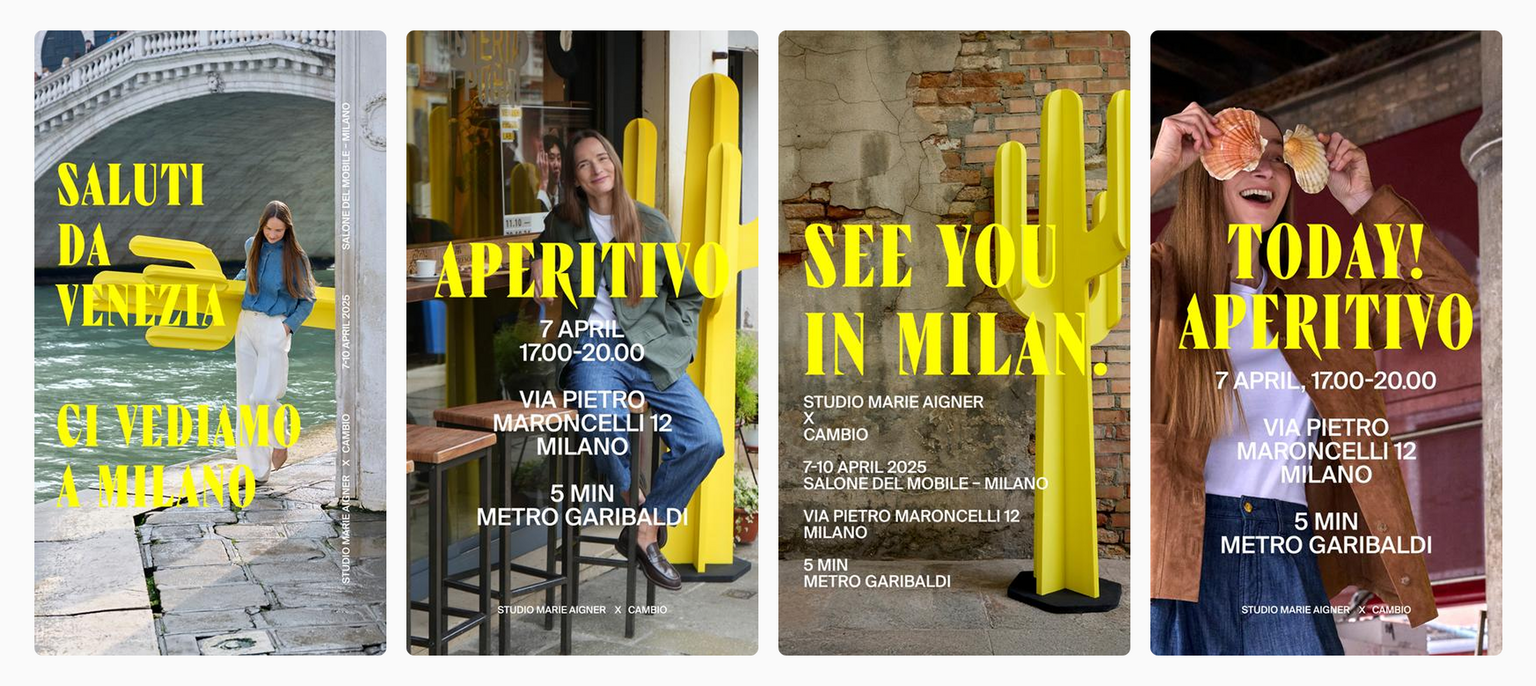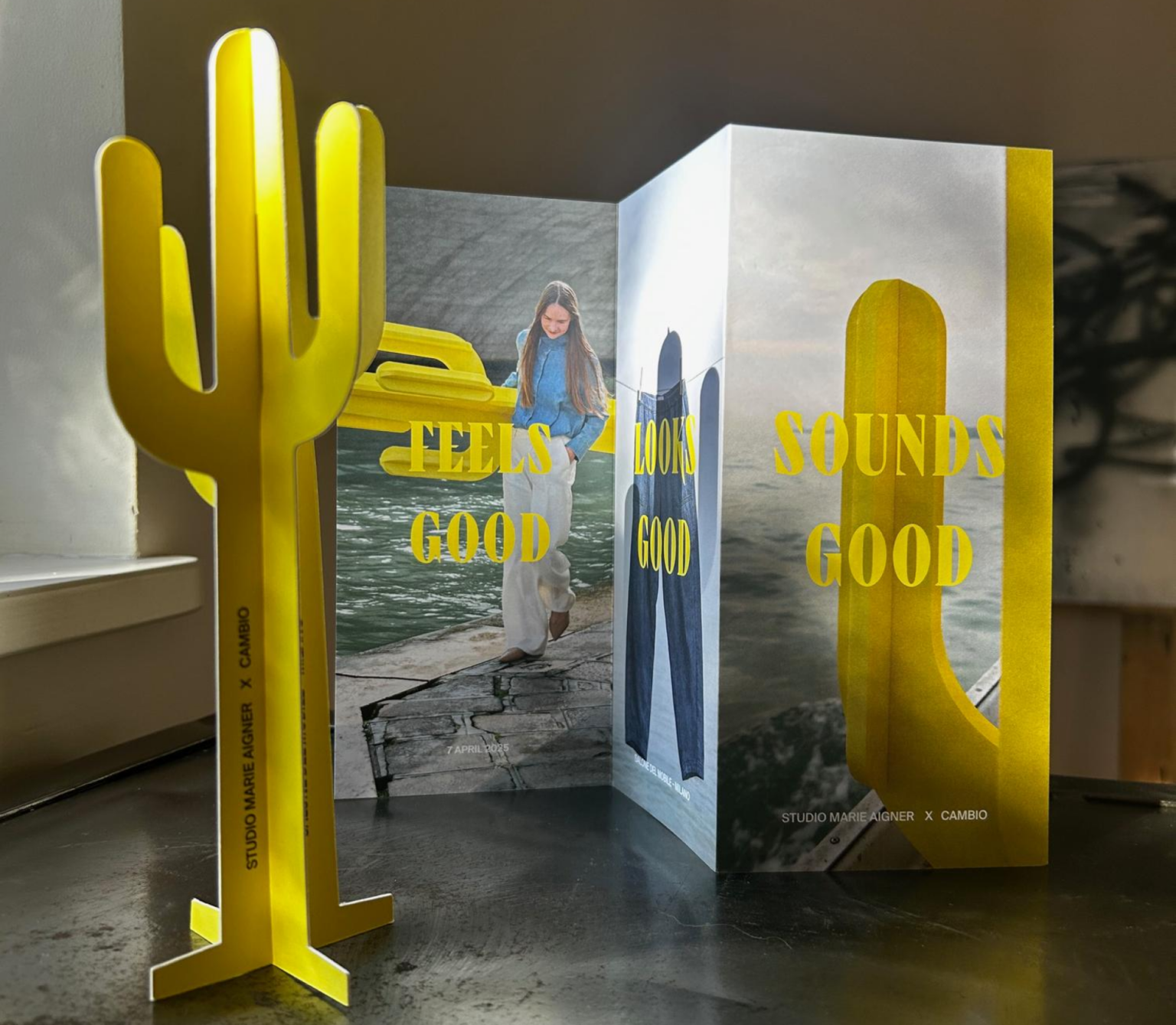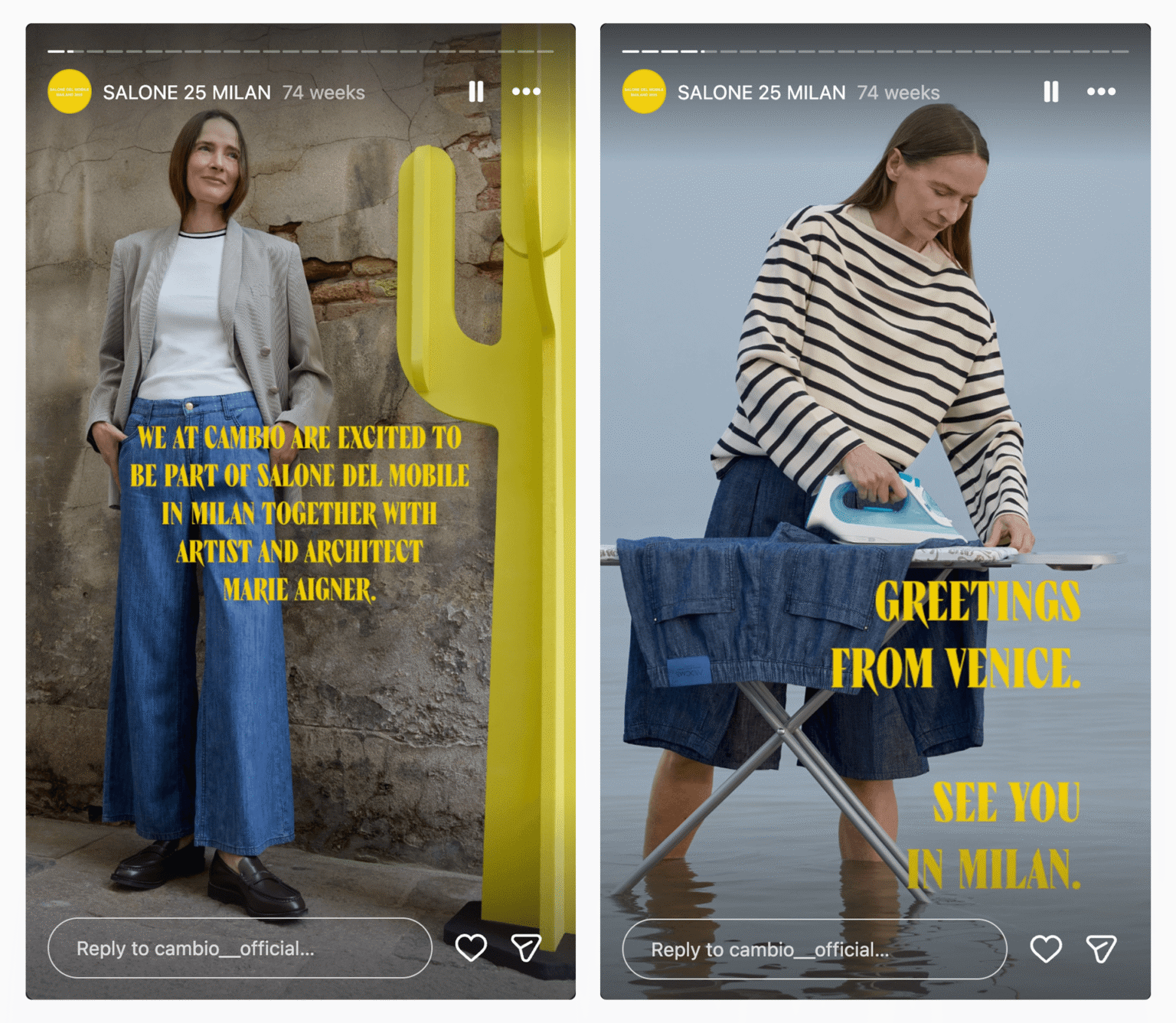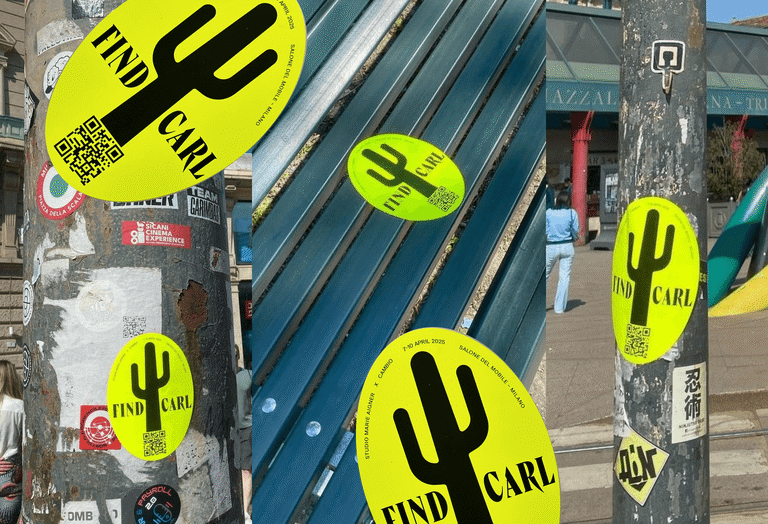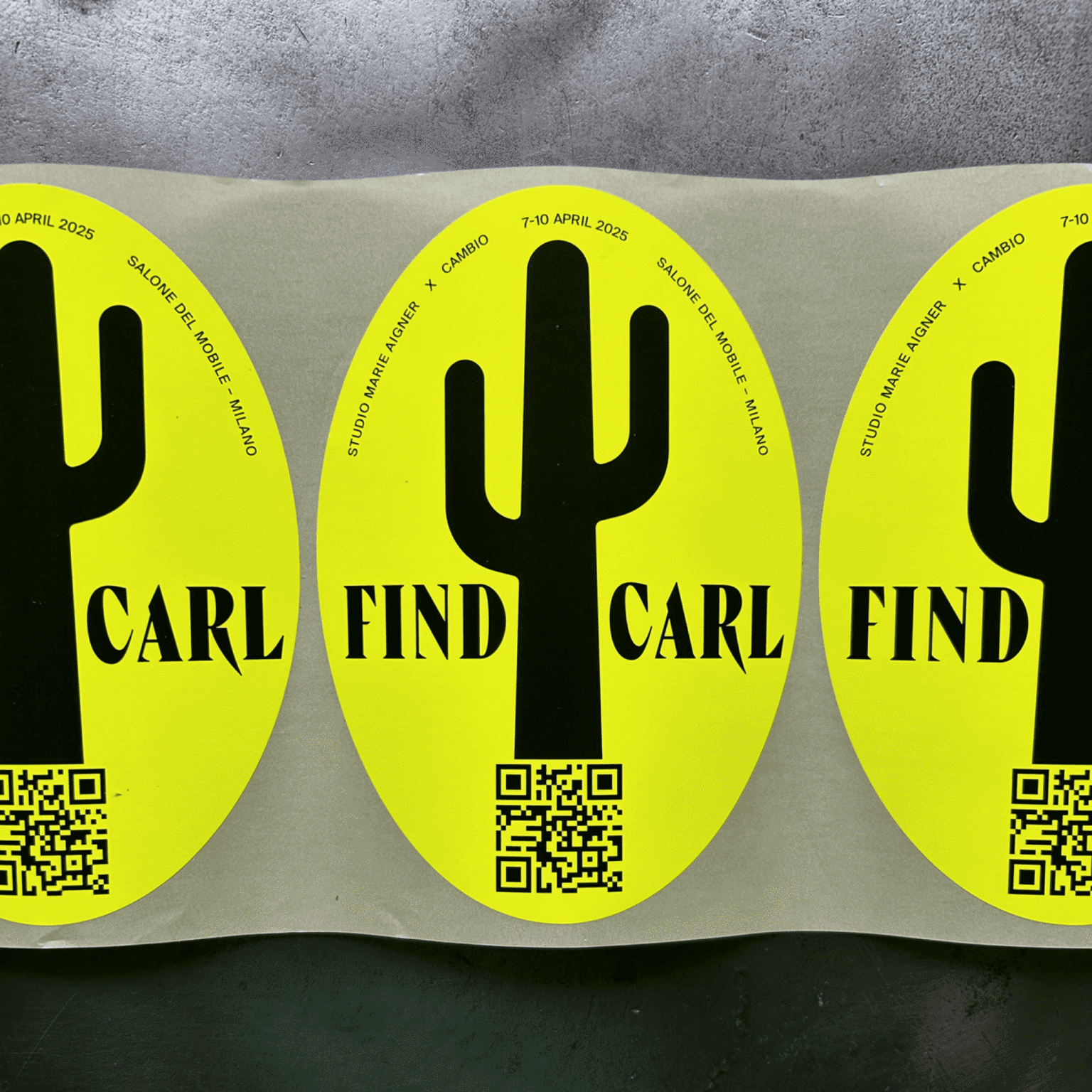
TT Ricks has become part of the visual identity for the Studio Marie Aigner x Cambio project, created at the intersection of architecture, design, and fashion.
Studio Marie Aigner is an architectural design bureau, and Cambio is a premium women’s clothing brand. In their collaborative project, TT Ricks organically supported the expressive and conceptual visual language, adding boldness and character.